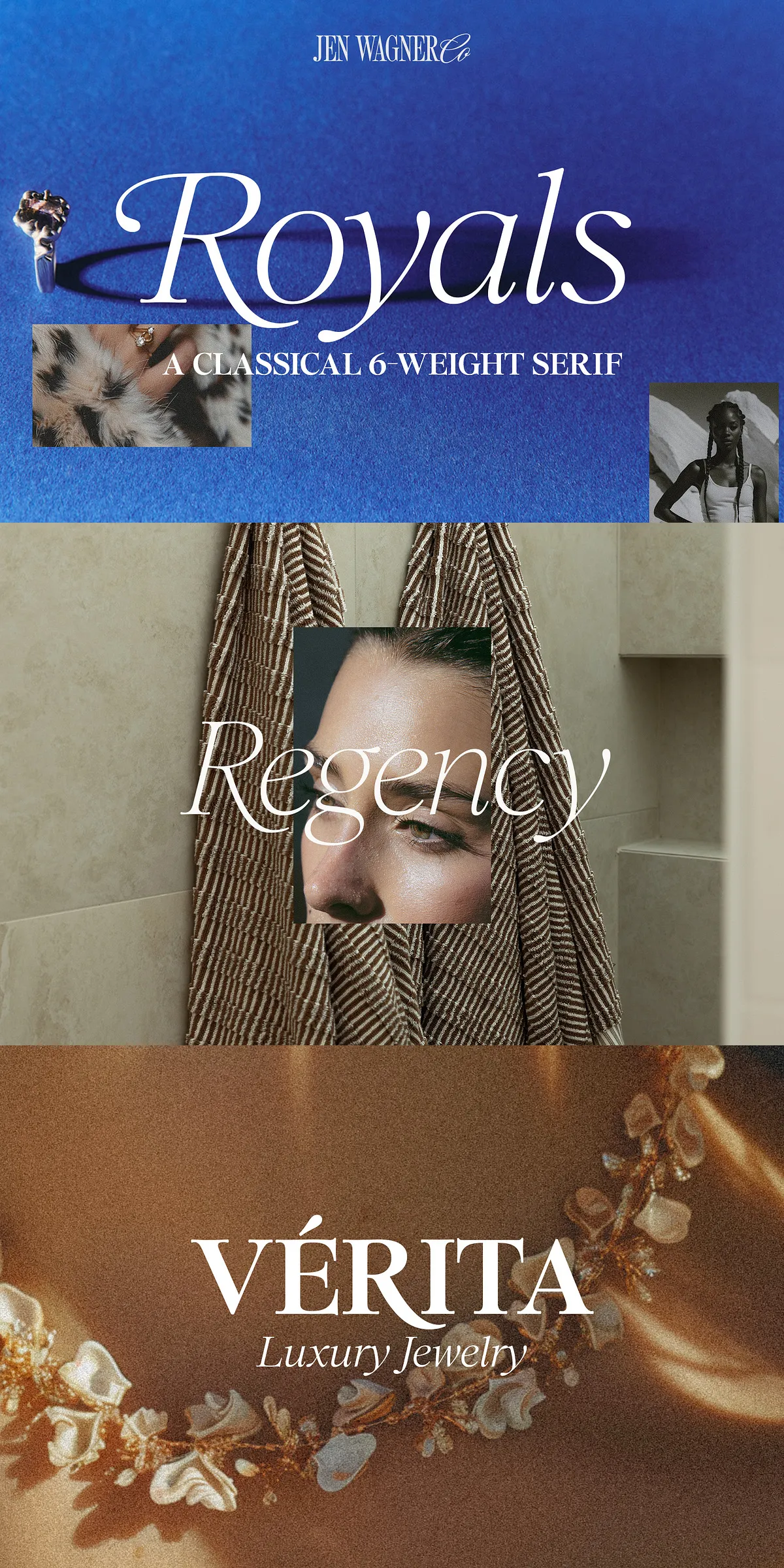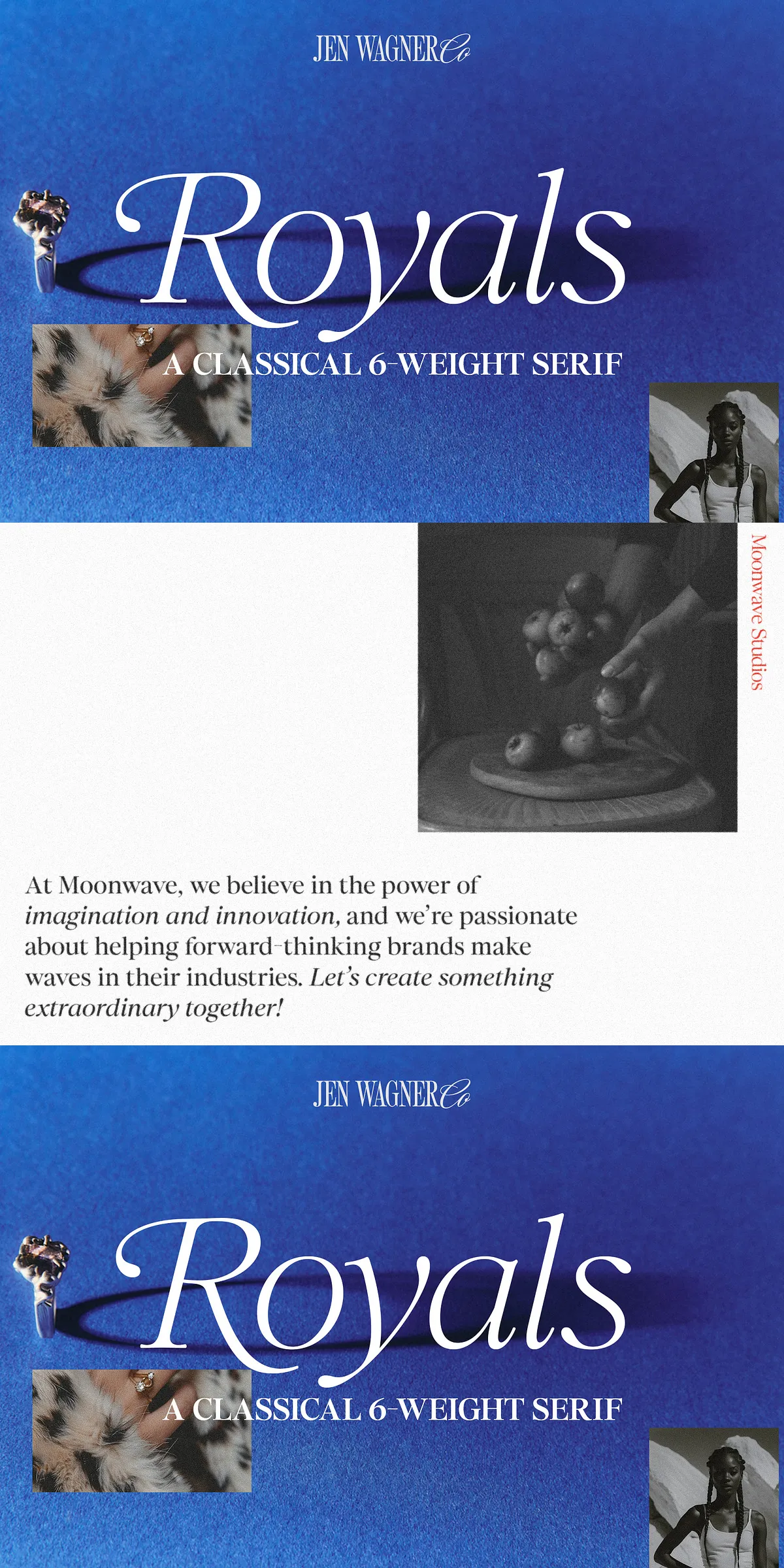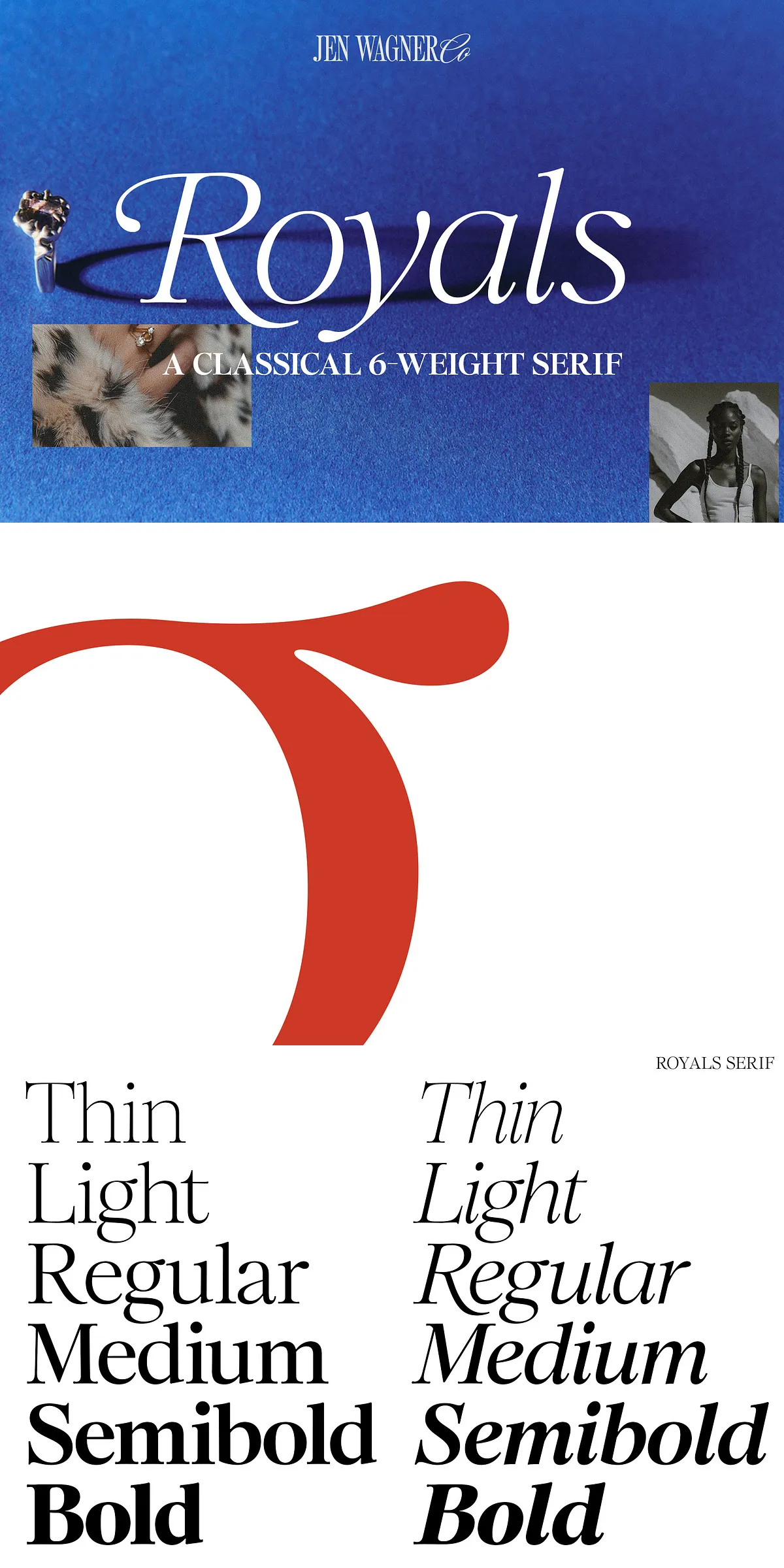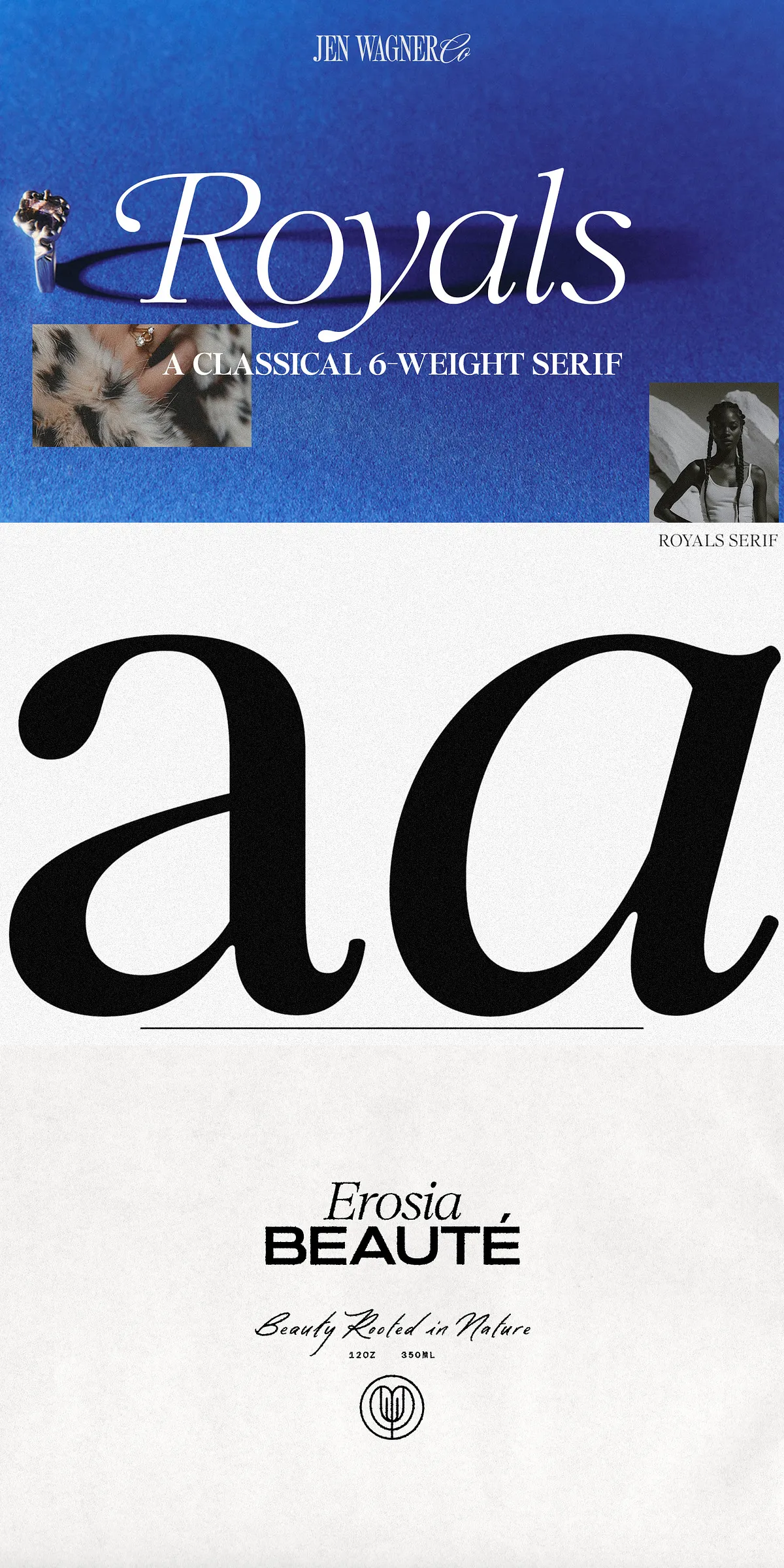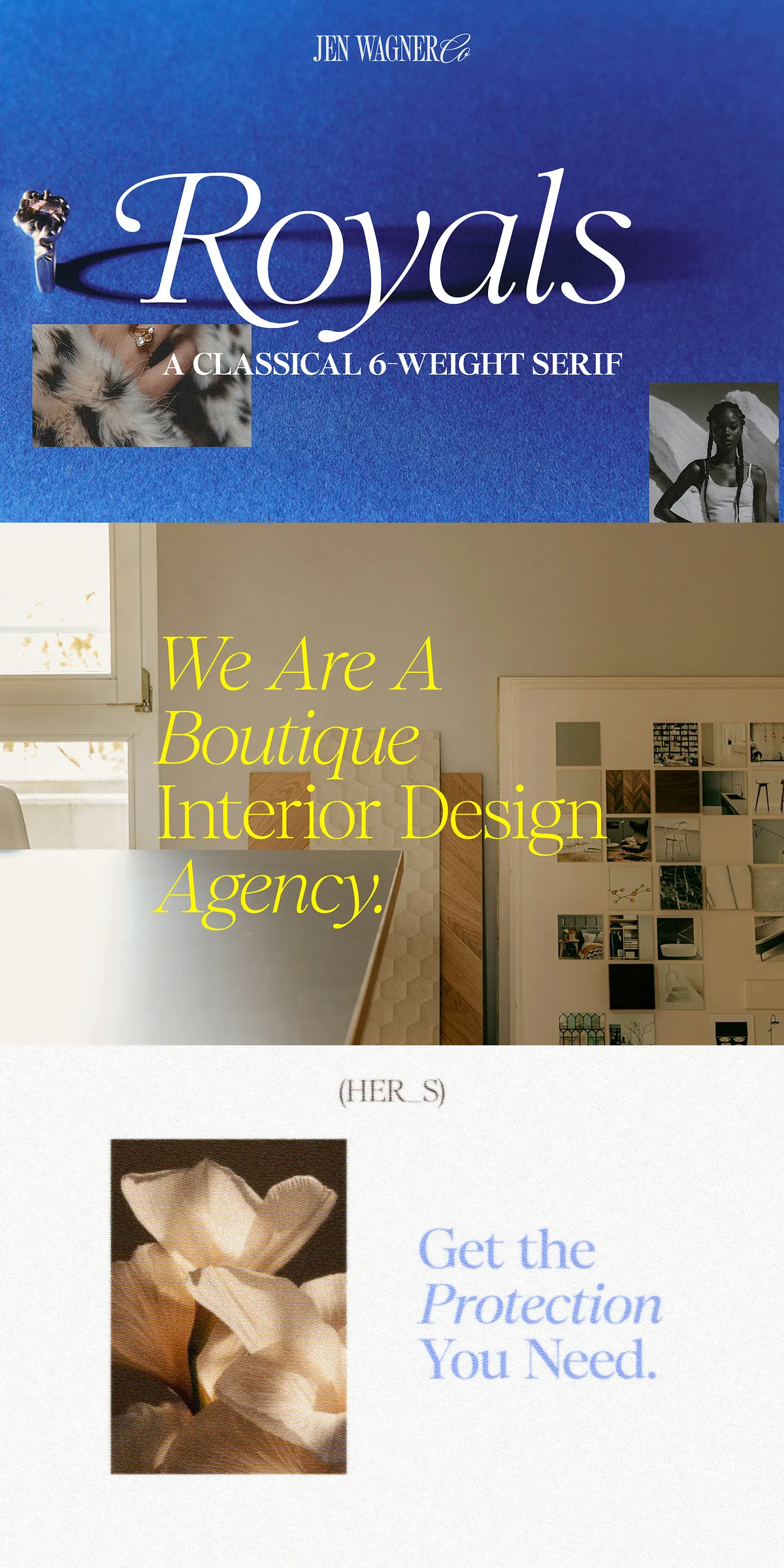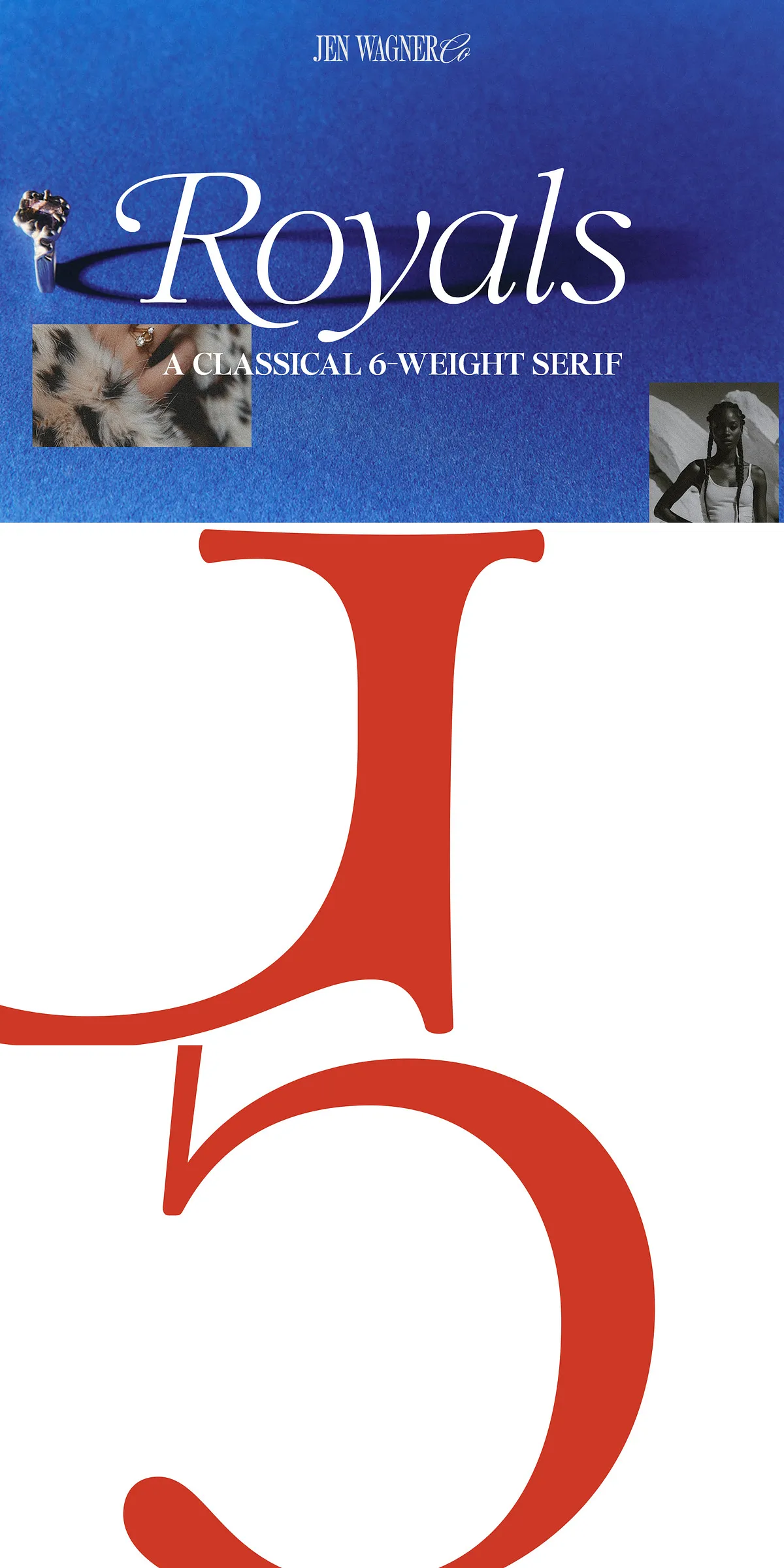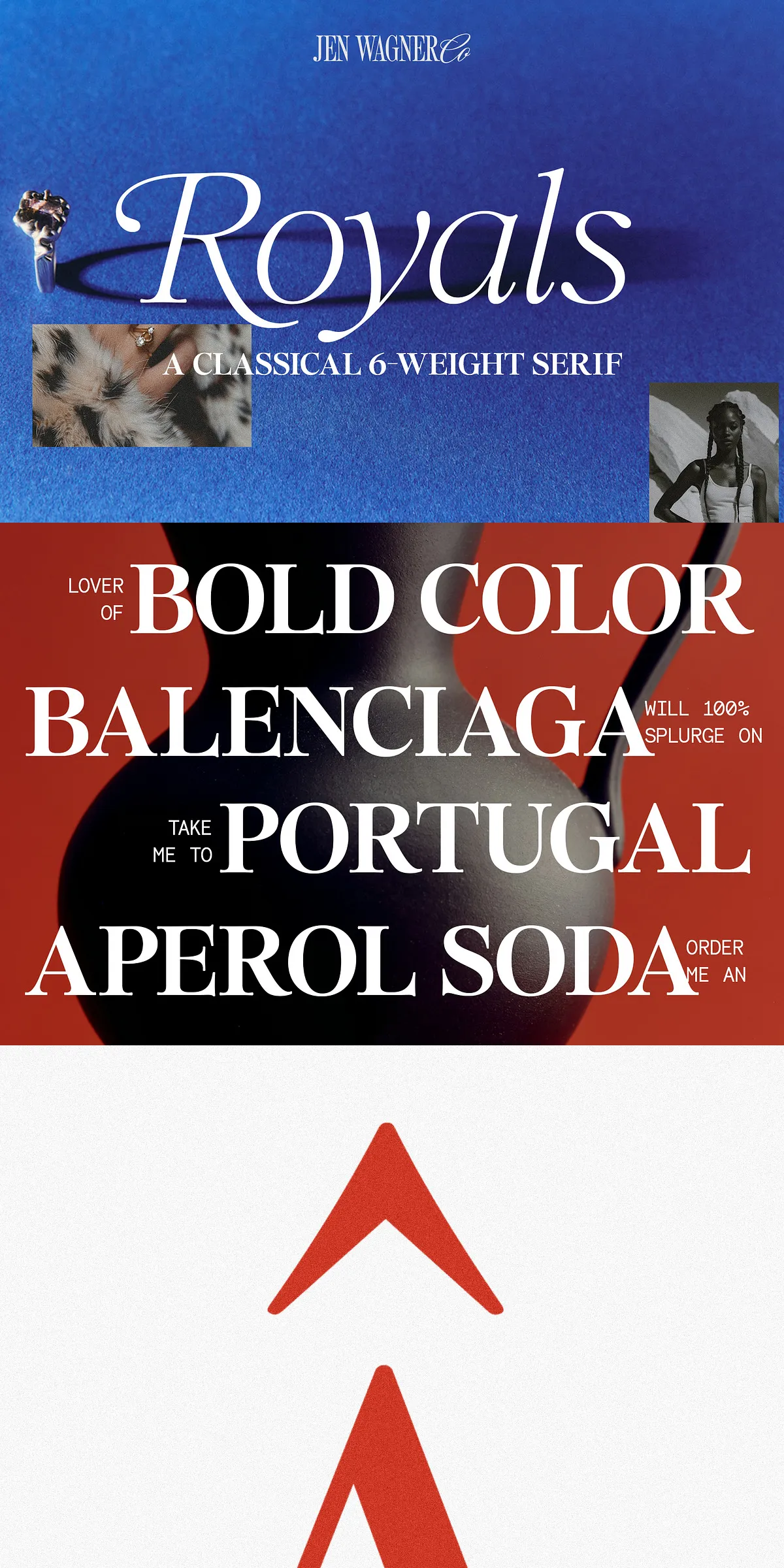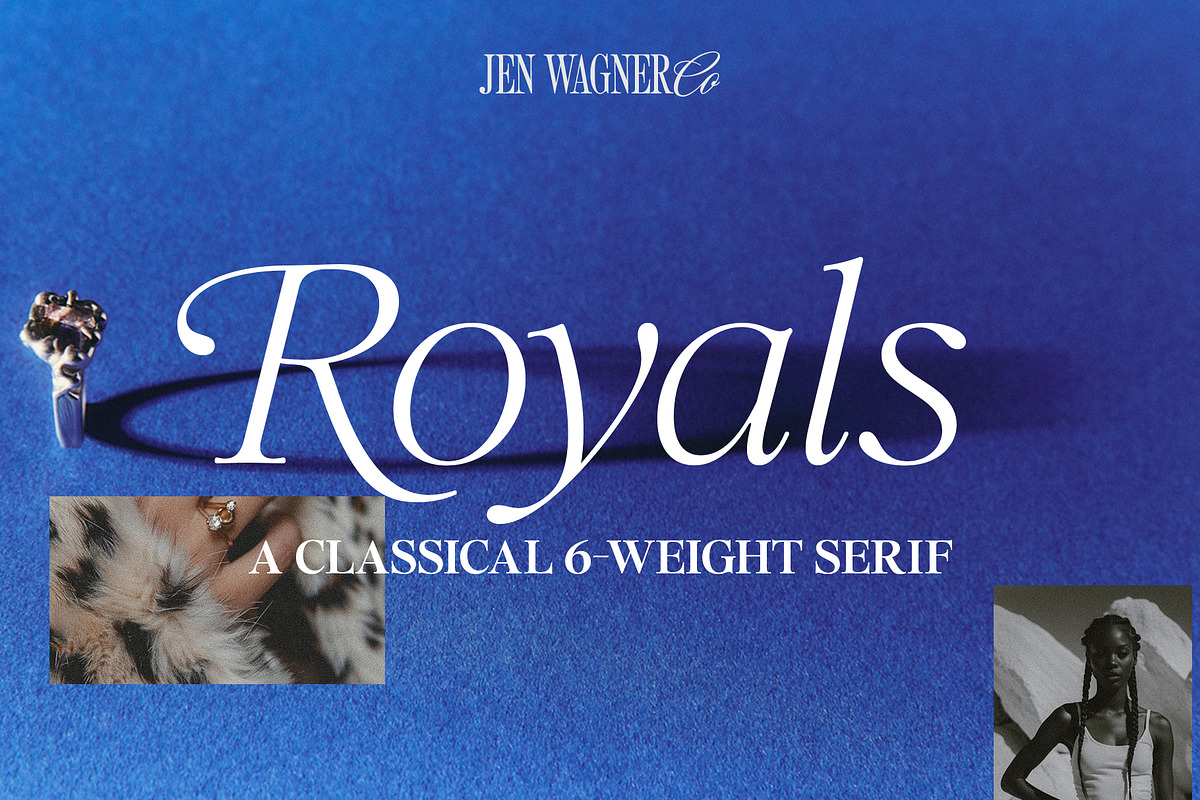
Elevate your typography with Royals Serif — a sophisticated, romantic serif family crafted for moments that demand grace, presence, and regal distinction. This 6-weight typeface blends classic tradition with contemporary refinement, designed to shine in bold headers, luxe branding, inspirational quotes, and any project that calls for a touch of enduring sophistication.
Command Every Moment with 6 Masterful Weights
From delicate elegance to powerful impact, Royals Serif delivers expressive range through its full suite of six weights: Thin, Light, Regular, Medium, Semibold, and Bold — each available with matching italic counterparts for a complete typographic arsenal.
Crafted for Emotional Impact
- Rounded cap serifs lend a gentle, approachable luxury — soft yet commanding.
- Organic curves and fluid strokes ensure natural flow and visual harmony.
- Soft, expressive italics that whisper refinement without sacrificing clarity.
Designed for Professional Designers and Creative Visionaries
Royals Serif isn’t just a font — it’s a powerful tool for storytelling through type. Whether you’re crafting a luxury fashion label, editorial layout, wedding invitation, or digital campaign, this typeface commands attention with quiet confidence.
Complete Typographic Features
- Full Latin character set with comprehensive punctuation and numerals.
- Extended foreign language support including accented characters for French, German, Spanish, Italian, and more.
- Swash alternates for key capitals — B, D, E, F, K, P, R — to add dramatic flourishes and enhance visual interest.
Where Royals Serif Belongs
From grand statements to intimate messages, Royals Serif fits every genre of creative expression with authenticity and poise.
Ideal For
- Luxury branding and editorial design
- Wedding invitations, RSVP cards, and formal announcements
- Magazine cover headlines and chapter titles
- Website headers and blog feature text
- Print advertising and high-end product packaging
- Crafting projects like stationery, mugs, and framed quotes
Bring Your Vision to Life with Confidence
Step into the spotlight with Royals Serif — where classic grace meets modern utility. Let your design speak with authority, elegance, and unwavering style. This isn’t just type. It’s legacy in form.